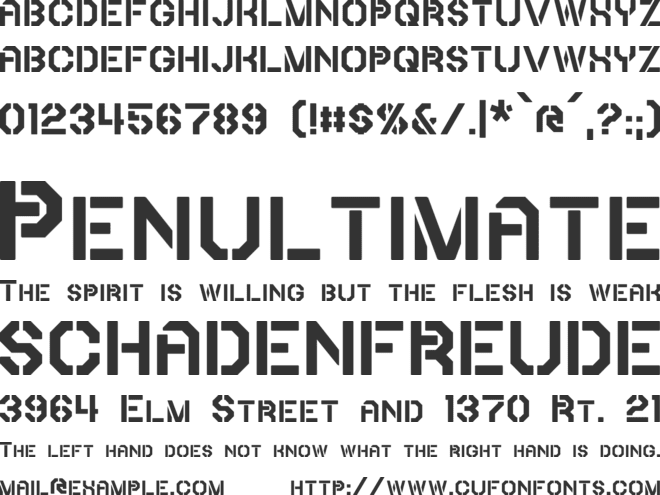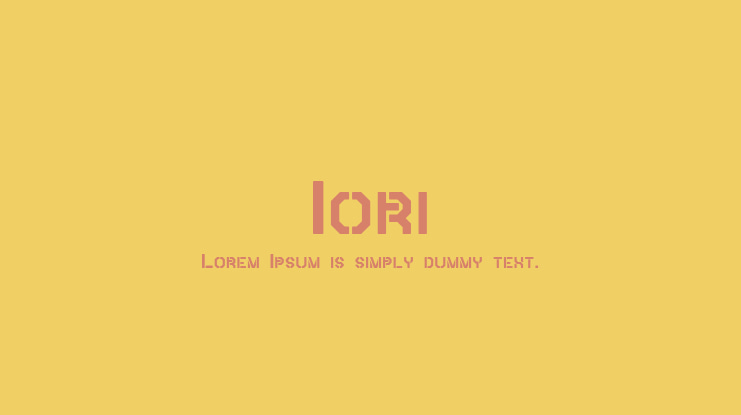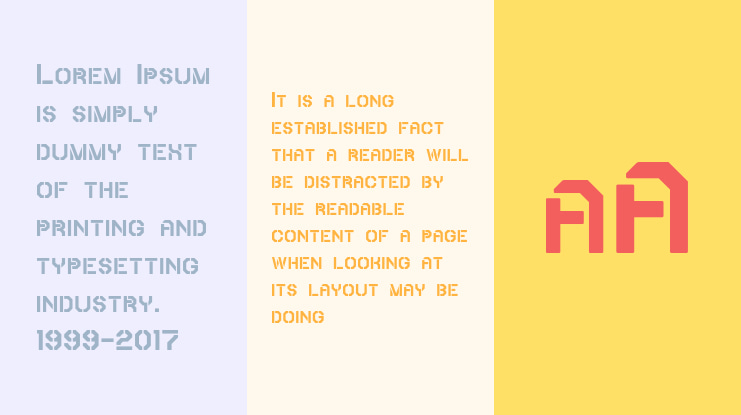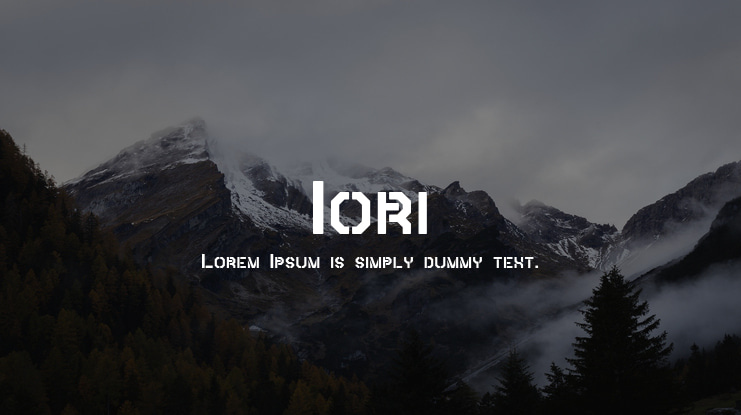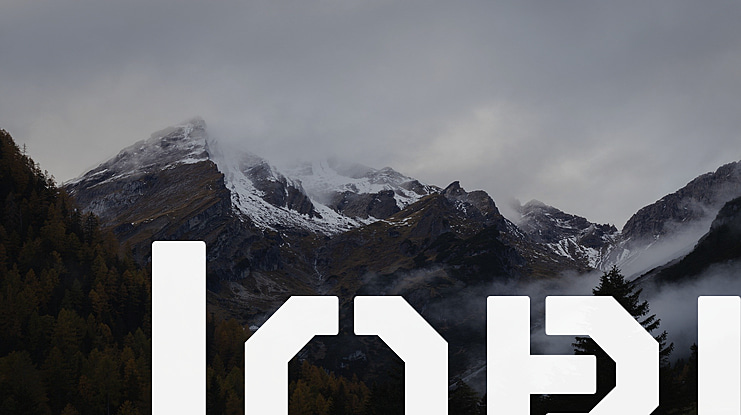
Iori Font Family
Neale Davidson
Iori is an angular, stencil-like typeface heavily influenced by Bandai of Japan’s Gunpla logo (referring to the hobby of making Gundam models). Includes full alphabet, extended punctuation, Euro. Includes italic and bold versions.